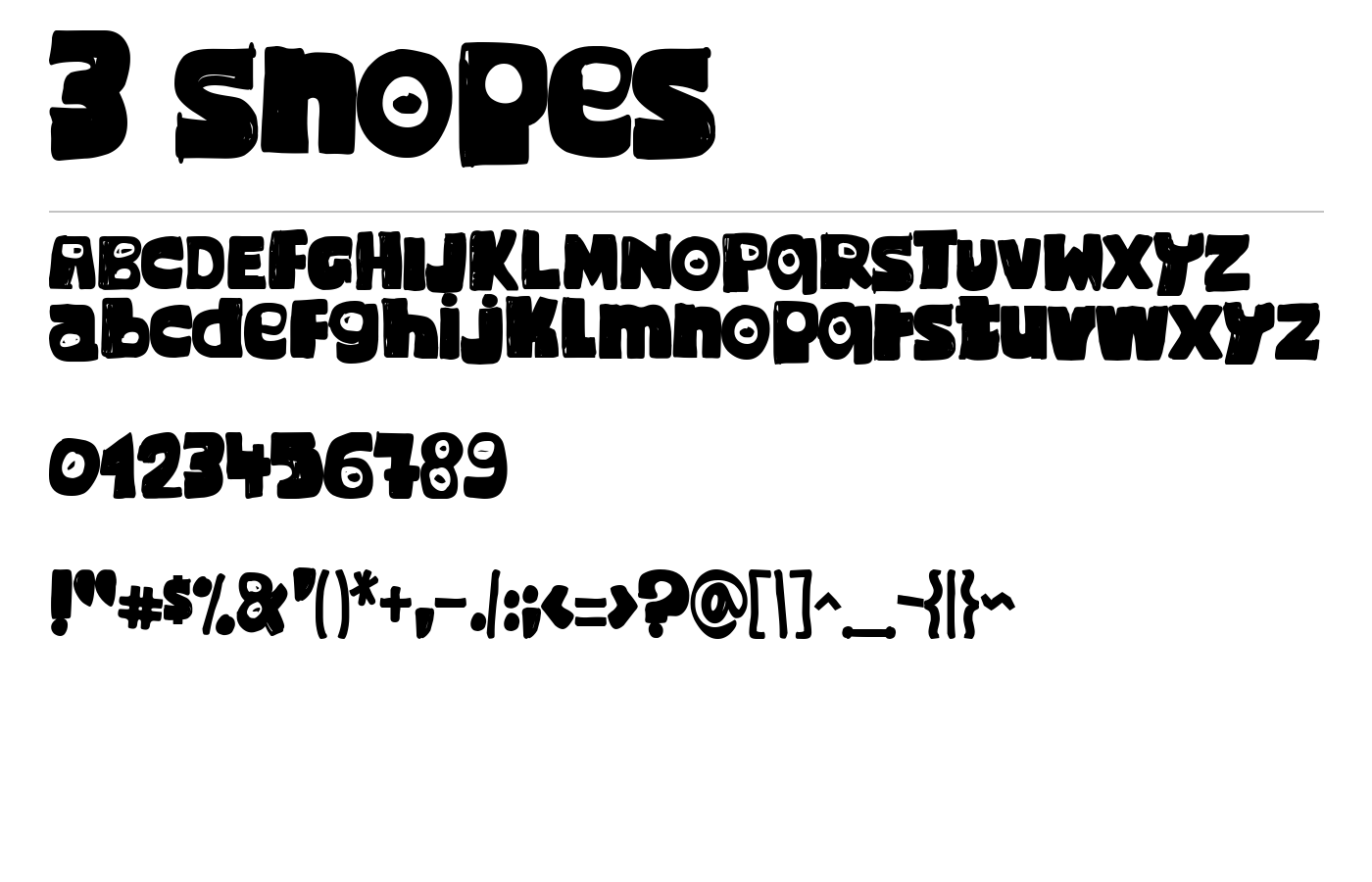
3 Snopes is a bold, playful sans serif font with a quirky and chunky style that stands out with its irregular, hand-drawn appearance. Its wide, solid letterforms and uneven edges give it a fun, casual personality perfect for creative projects, children’s materials, or informal branding that seeks to convey energy and approachability. This font works well in headlines, posters, and logos where a distinctive, lively character is desired.
3 Snopes Font
About 3 Snopes Font
| Font family | 3 Snopes Font |
| Designer | paintblack |